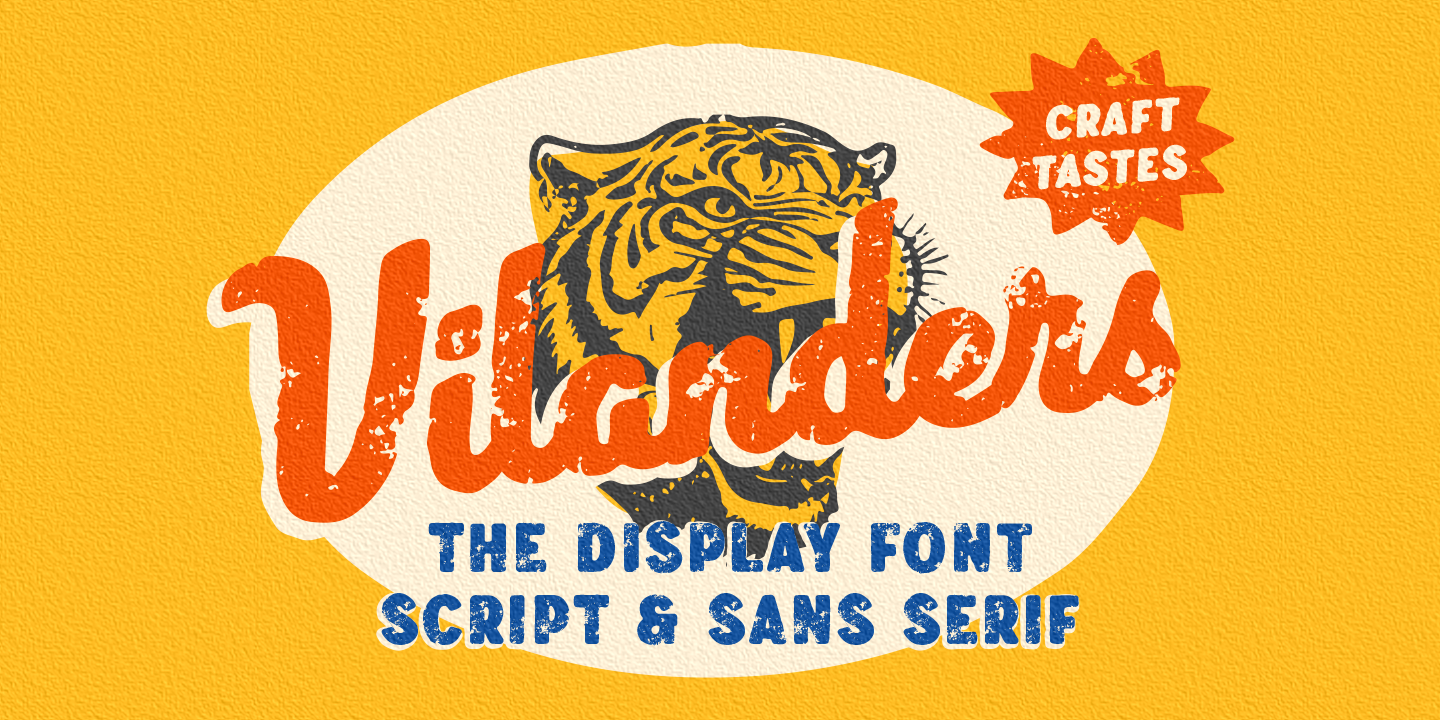
Vilanders Font is perfect for fantasy adventure branding, medieval gaming interfaces, epic storytelling publications, mystical entertainment designs, heroic quest promotions, ancient legend materials, magical realm communications, and adventurous exploration campaigns. This captivating typeface excels in applications requiring epic adventure spirit and mystical character that captures the essence of legendary journeys and heroic quests through bold visual storytelling and adventurous presence.
What makes Vilanders Font exciting is its epic adventure essence that perfectly captures the spirit of heroic journeys and mystical quests through boldly crafted letterforms inspired by legendary tales. The font features adventurous character construction with epic proportions and mystical presence that instantly evokes feelings of adventure, heroism, and legendary storytelling perfect for brands celebrating epic narratives and adventurous spirit in fantasy entertainment markets.
The Vilanders Font family includes heroic weights and adventure variations with mystical styling elements, offering designers comprehensive tools for creating epic storytelling compositions. The family provides consistent adventure aesthetic with varying epic intensity for versatile fantasy communications and heroic branding projects requiring genuine quest character and legendary adventure appeal.
The heroically crafted letterforms of Vilanders Font ensure excellent readability while maximizing adventure charm and epic storytelling appeal, making it ideal for fantasy entertainment marketing, adventure gaming interfaces, and epic narrative communications. This captivating typeface combines adventure heritage with contemporary technical standards for outstanding performance in modern design environments requiring authentic quest character and epic adventure presence.